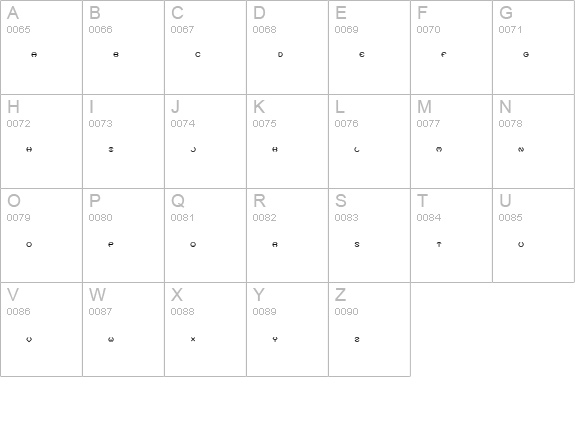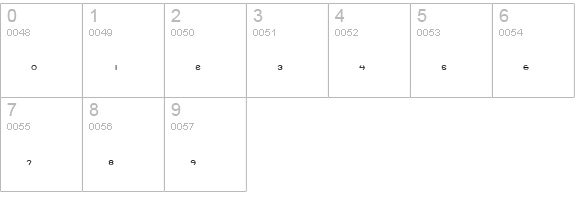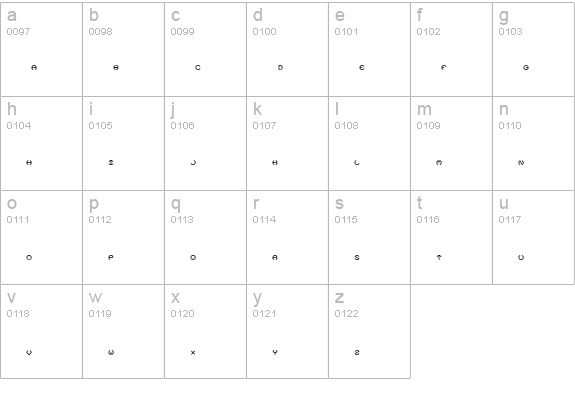
Code Of Life BRK Font Details
Code Of Life BRK font is a modern and stylish typeface that exudes sophistication and elegance. Its sleek and sleek design makes it perfect for a wide range of design projects, from branding to editorial layouts. With its clean lines and sharp edges, this font is sure to make a statement and capture attention. What sets Code Of Life BRK font apart is that it is completely free to download. This means that you can enhance your designs with this stunning font without having to worry about any additional costs. You can easily access and download Code Of Life BRK font at FontsMarket.com, where it is available for free for personal and commercial use. Whether you are working on a website, poster, or branding project, Code Of Life BRK font is a versatile and eye-catching choice that will elevate your designs to the next level. Download it today and add a touch of elegance to your projects!